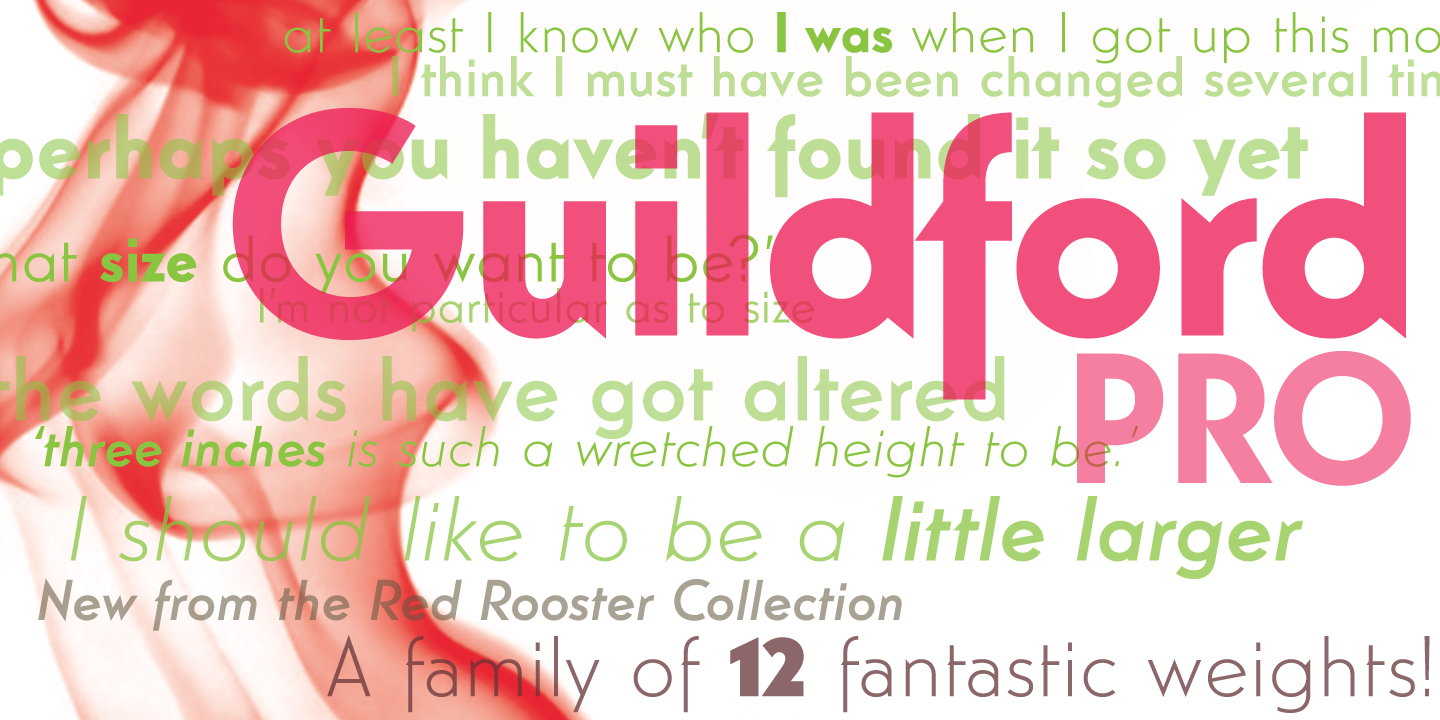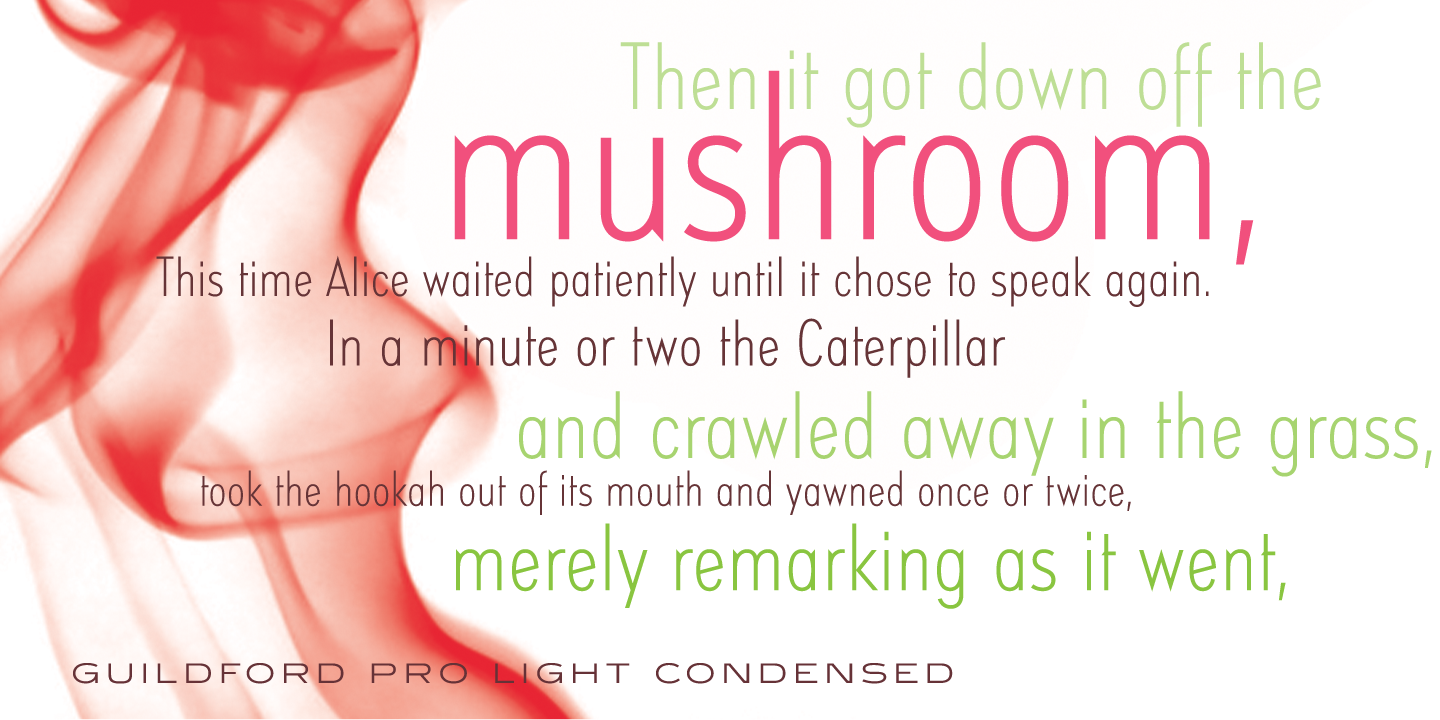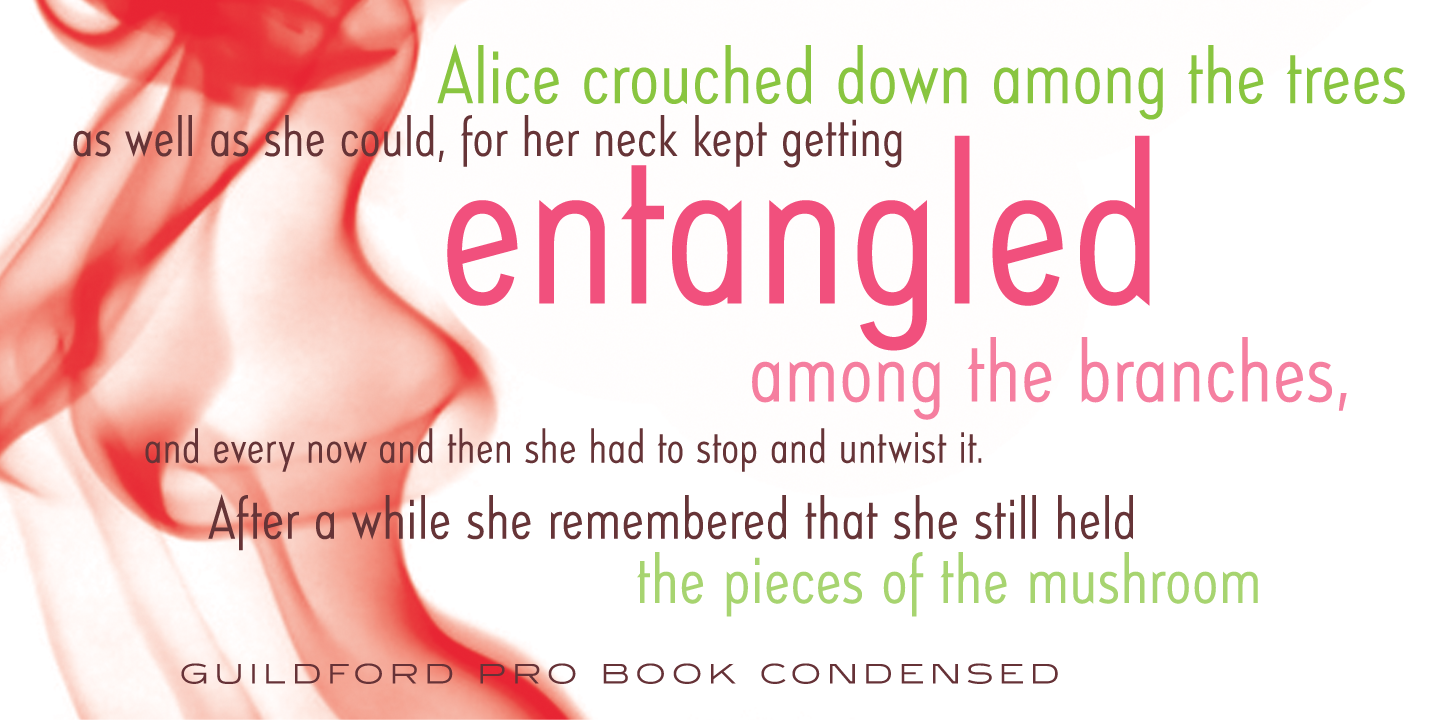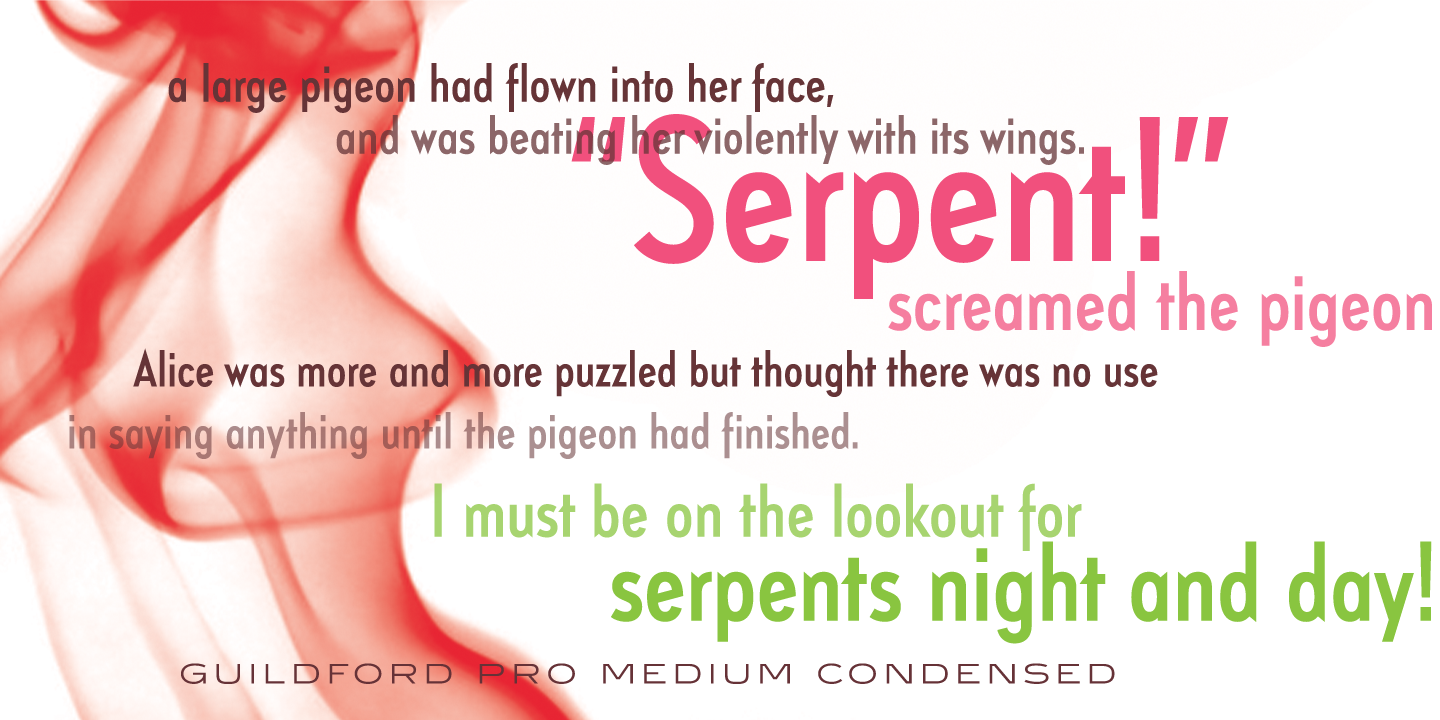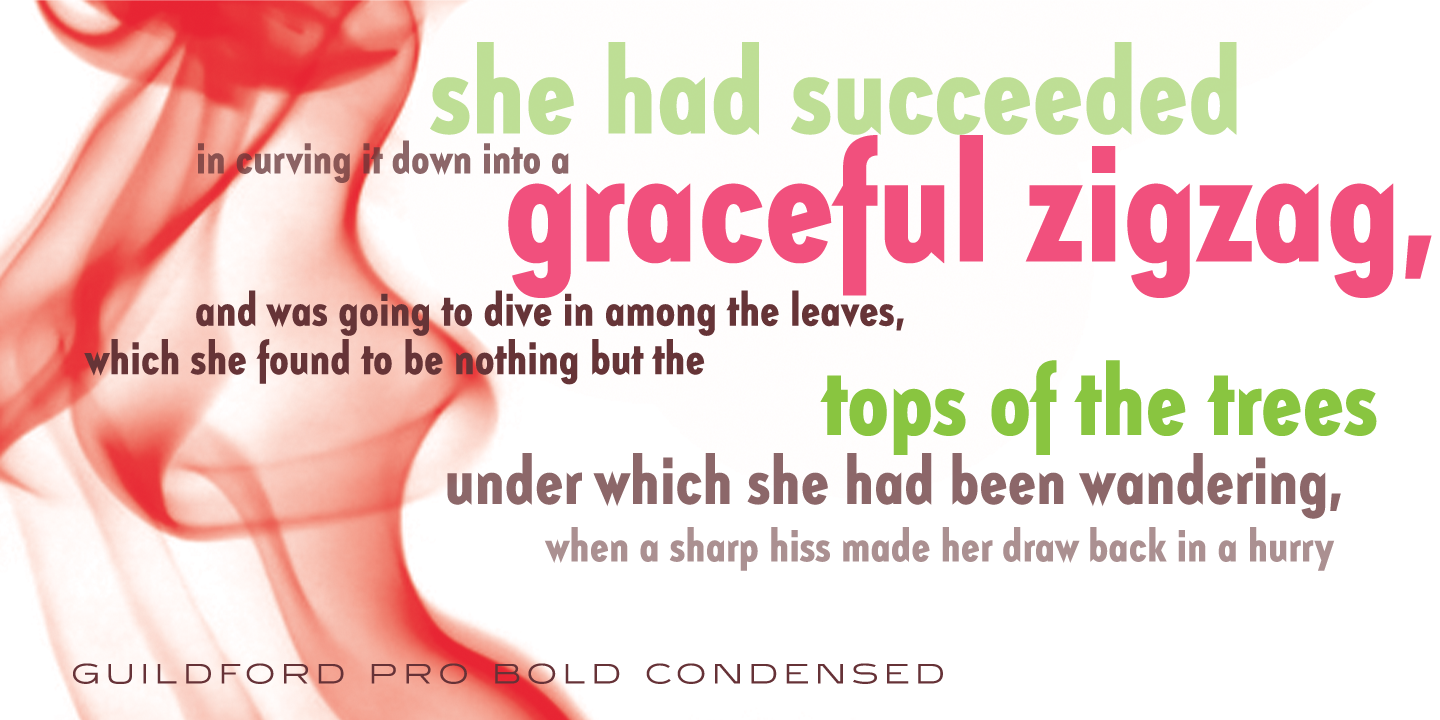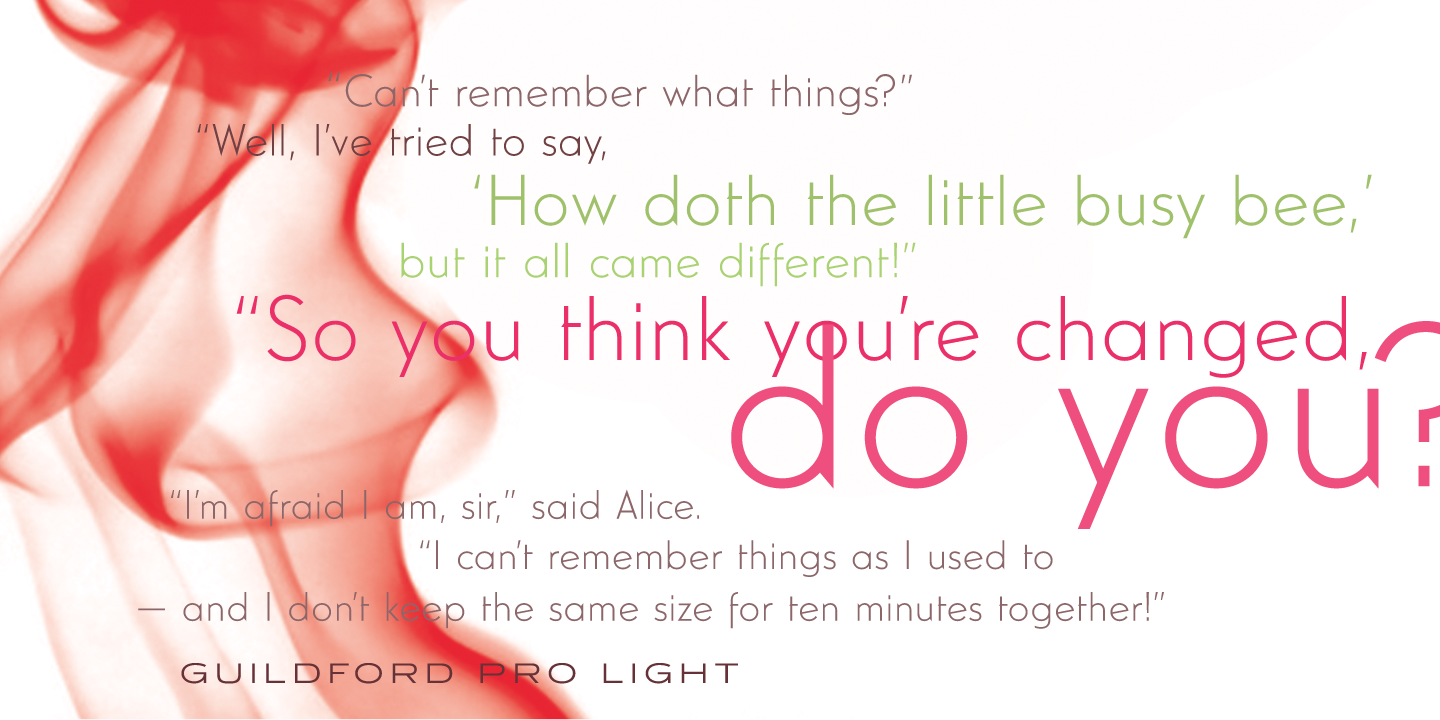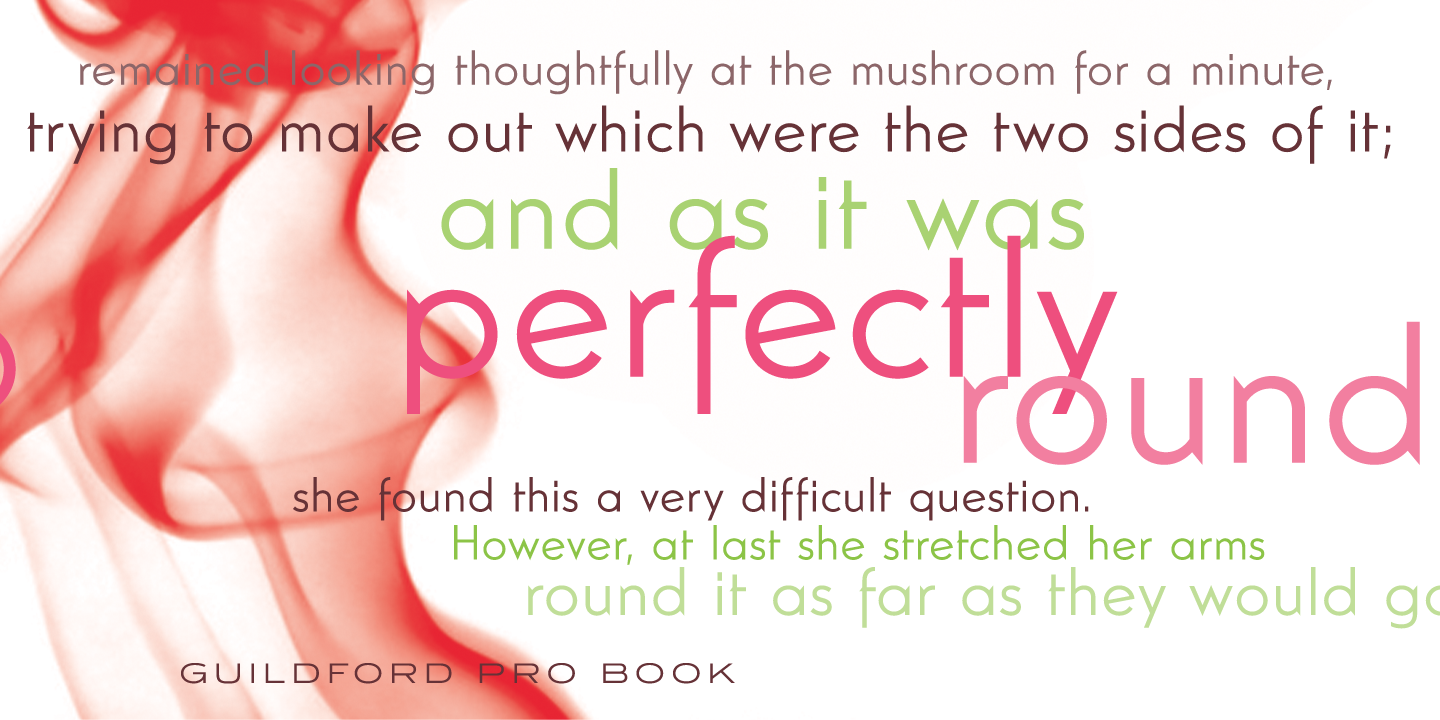
Guildford Font Family
Guildford is a decorative sans serif font family, exclusively licensed from the Stephenson Blake Collection. The family was completely redesigned and produced in 2011 by Steve Jackaman (ITF) and Ashley Muir, with italic and condensed weights added to the originals. Guildford Sans is identical to Stempel’s Elegant Grotesque, the 1928-29 design by Hans Möhring. The name of the typeface holds sentimental value to Jackaman, as he grew up near and frequently visited the town of Guildford in Surrey, England. Two sister type families, Relish and Windlesham, were developed after the success of Guildford.
OpenType Features
• Common Ligatures
• Fractions
• Ordinal Numerals
• Stylistic Alternates
• Stylistic Sets
• Subscript
• Superscript